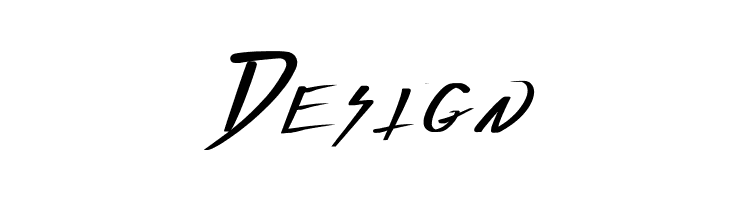
Parcely Free Italic Font
- Font: Parcely Free Italic
( Fonts by Rob Dobi - Toxic Type - www.dobi.nu )
A bold, dynamic font with sharp, angular strokes and a slanted, energetic style.